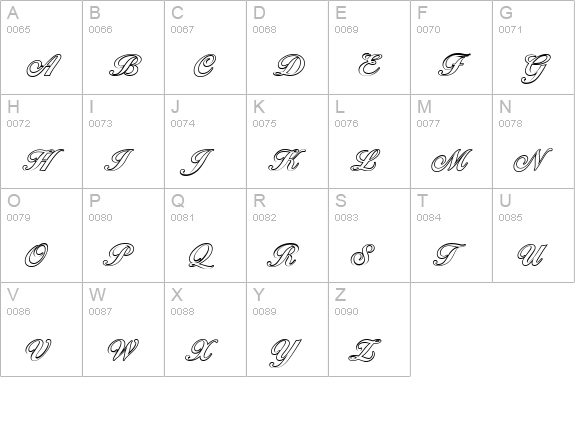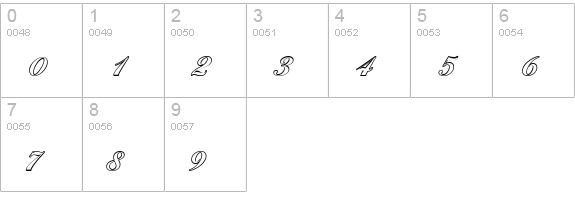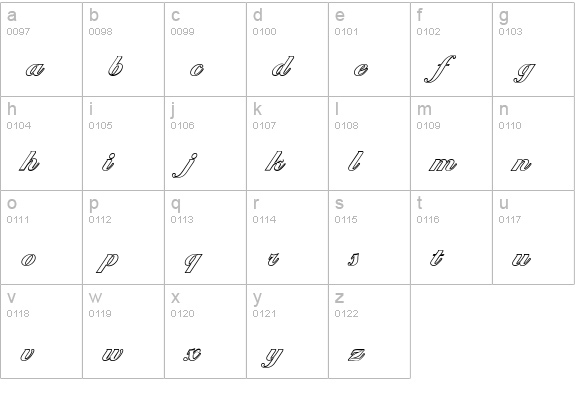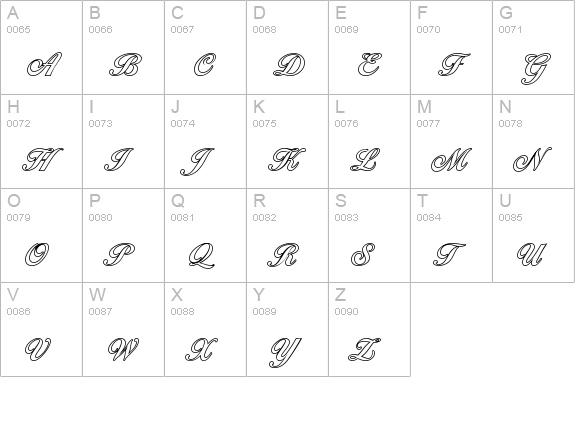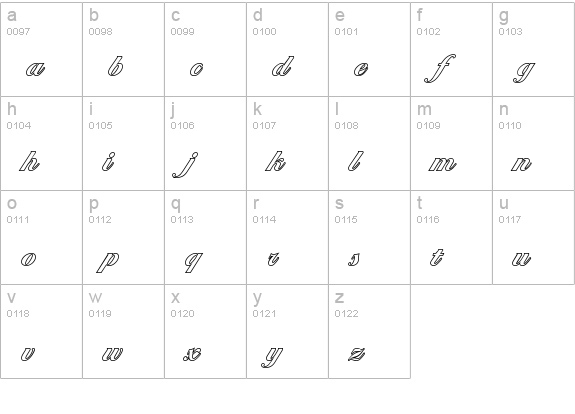
BallantinesOutline-Xbold-Regular is the standard, neutral variant in the BallantinesOutline typeface family \xE2\x80\x94 well suited to general body text, paragraphs, and standard typographic work.
BallantinesOutline-Xbold-Regular is a bold and striking font that exudes confidence and modernity. Its strong lines and clean design make it perfect for making a statement in any project. This font is ideal for headlines, titles, and any other text that needs to stand out. Best of all, BallantinesOutline-Xbold-Regular is available for free download at FontsMarket.com. So whether you're a designer looking to add a powerful touch to your work or someone who simply appreciates high-quality fonts, this is the perfect choice for you. Download BallantinesOutline-Xbold-Regular today and elevate your designs with its bold and impactful style.